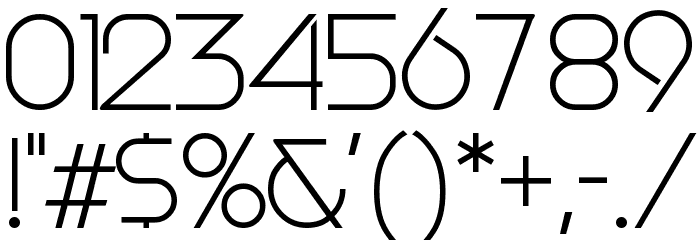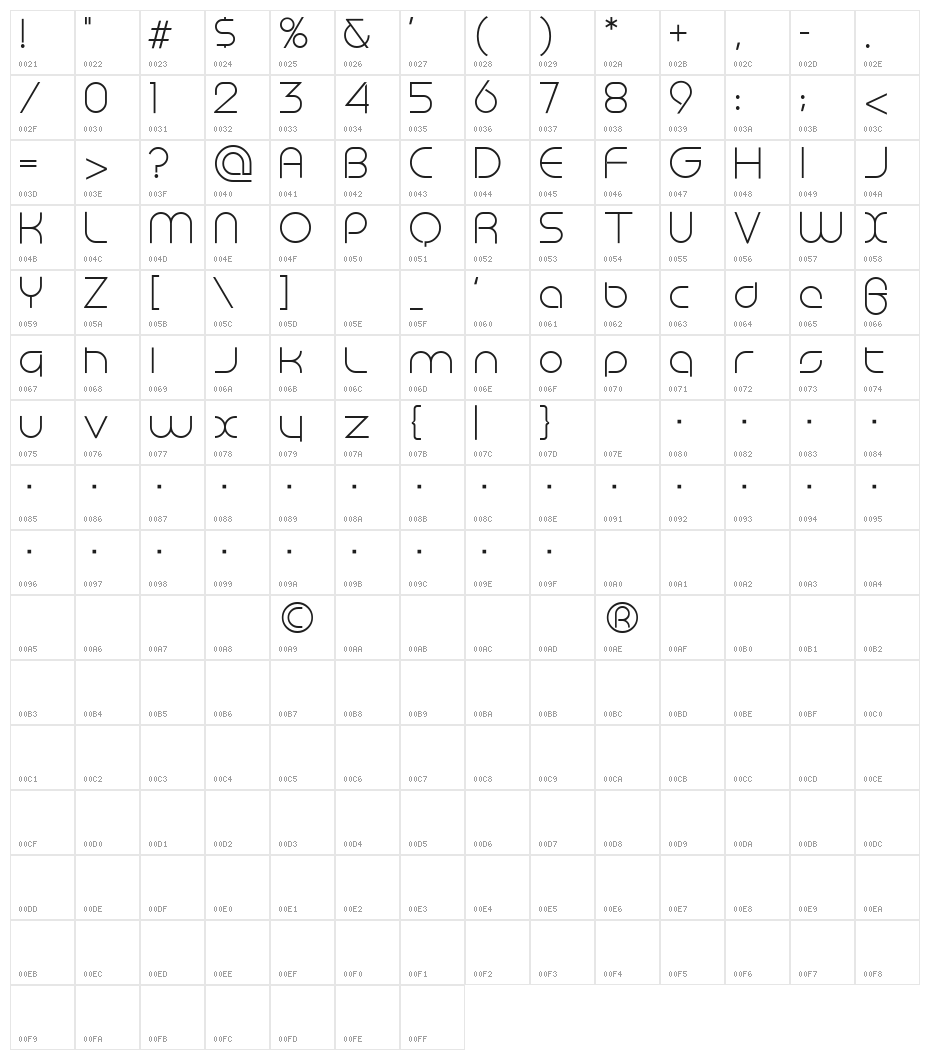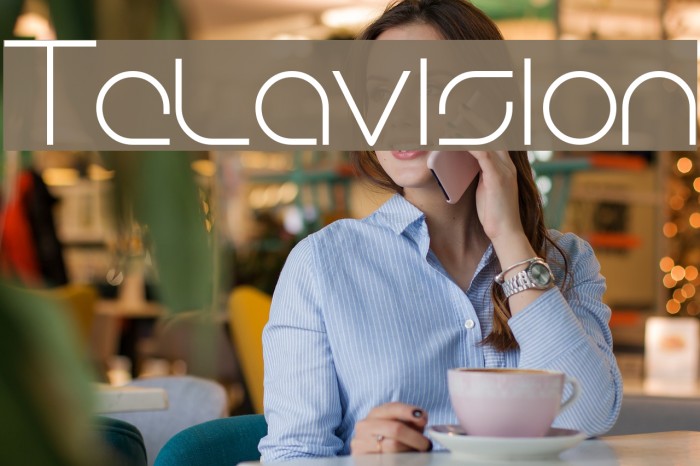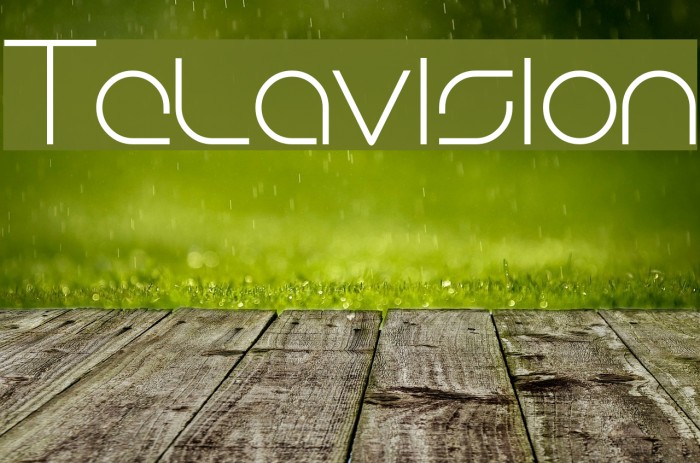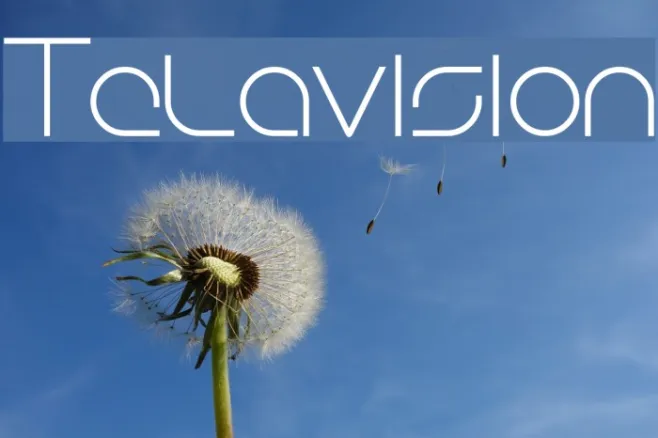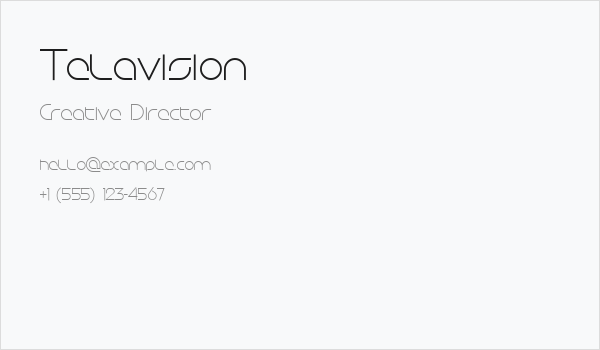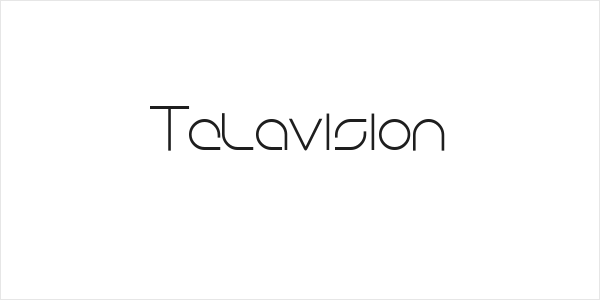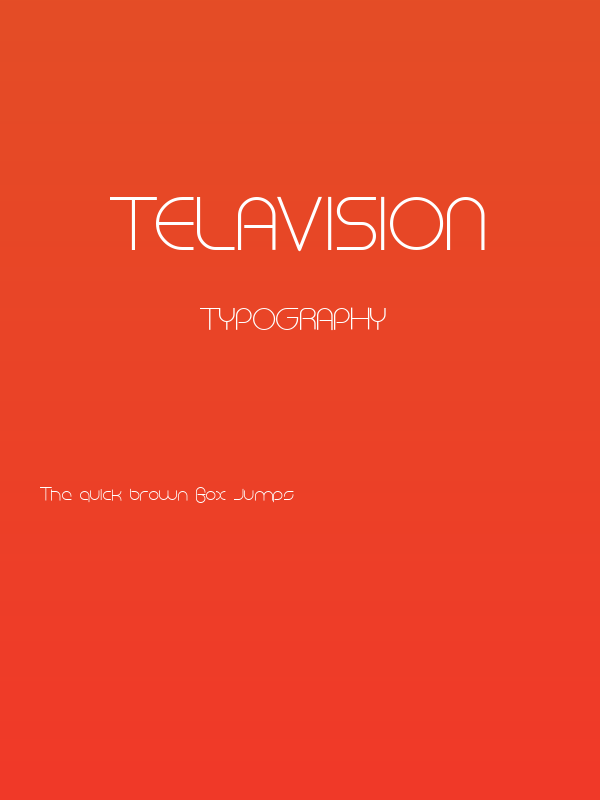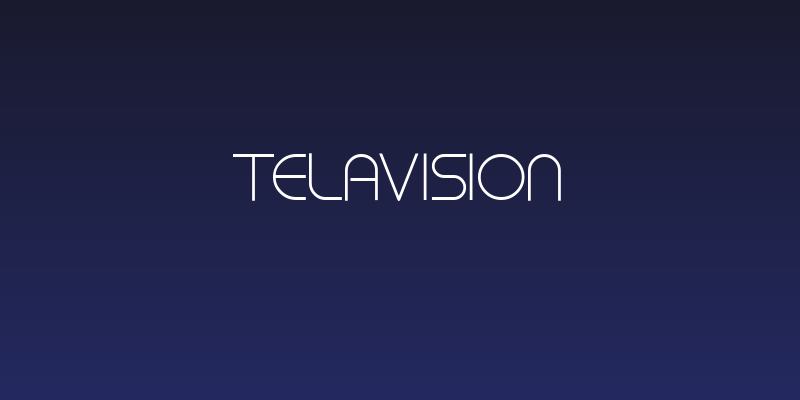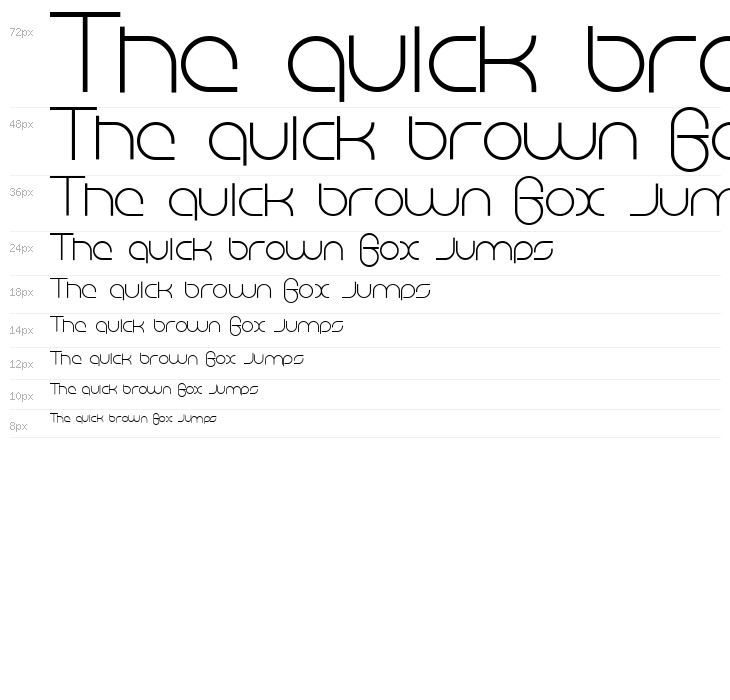
Telavision Font
Telavision Description
This font exhibits a sleek, modern design with a geometric and futuristic aesthetic. The characters are composed of clean, continuous lines with rounded edges, creating a harmonious and fluid appearance. The uppercase and lowercase letters maintain a consistent style, with a focus on symmetry and balance. The numerals and special characters are crafted with the same attention to detail, ensuring a cohesive look across all elements. The font's minimalist approach makes it versatile for various design applications, where a contemporary and sophisticated look is desired.
| Proposed Projects | Ideal for tech branding, modern advertising, digital interfaces, and futuristic design projects. |